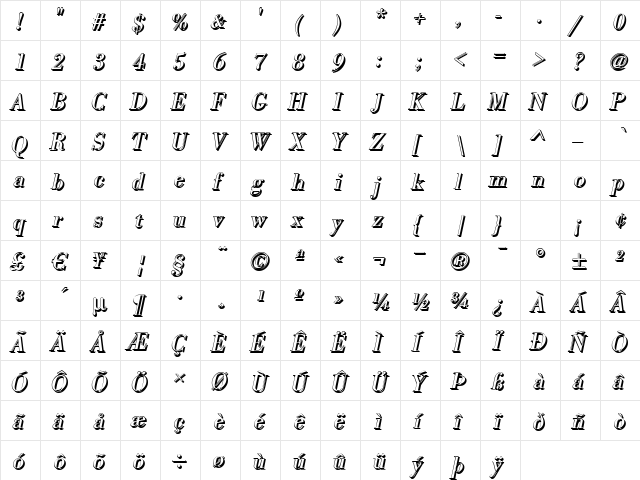
BodoniSh Italic
Design Context for BodoniSh Typeface
BodoniSh takes a measured approach to typography — its balanced proportions and neutral character make it a reliable workhorse for both digital and print work. The dynamic lean of this cut emphasises speed and emphasis in any layout.
Pro Tip: Use BodoniSh for emphasis, pull quotes, and subheadings where its slanted energy can add rhythm to the layout.